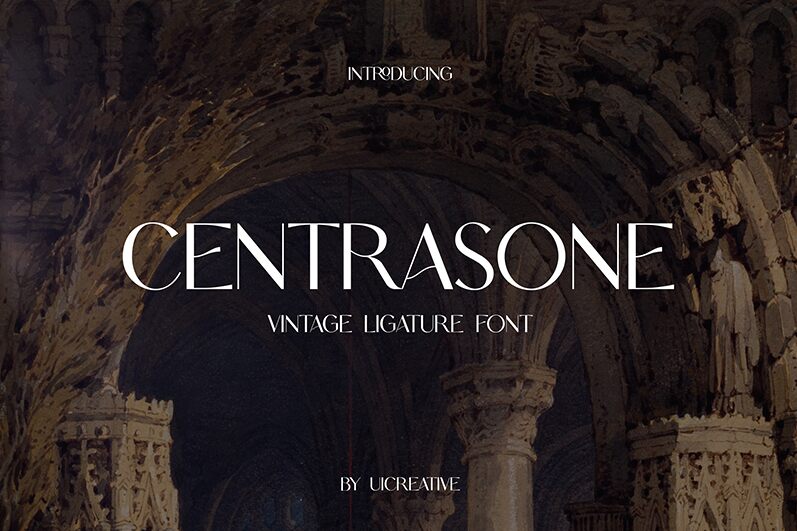
CENTRASONE
The Centrasone serif font, designed by UI Creative, exudes a timeless elegance with its refined, yet distinctive features. Its balanced letterforms and subtle, graceful curves evoke a sense of sophistication and refinement, making it an ideal choice for high-end editorial, corporate, and branding applications. The Centrasone font's versatility shines through its ability to convey both a formal and modern aesthetic, allowing designers to seamlessly incorporate it into a wide range of design projects.
This font's versatility extends beyond its visual appeal, as its readability and legibility make it a suitable choice for body text in publications, websites, and marketing materials. Its classic, yet contemporary style lends itself to a variety of design contexts, from luxurious editorial spreads to minimalist branding initiatives, allowing designers to create a cohesive and visually compelling aesthetic.